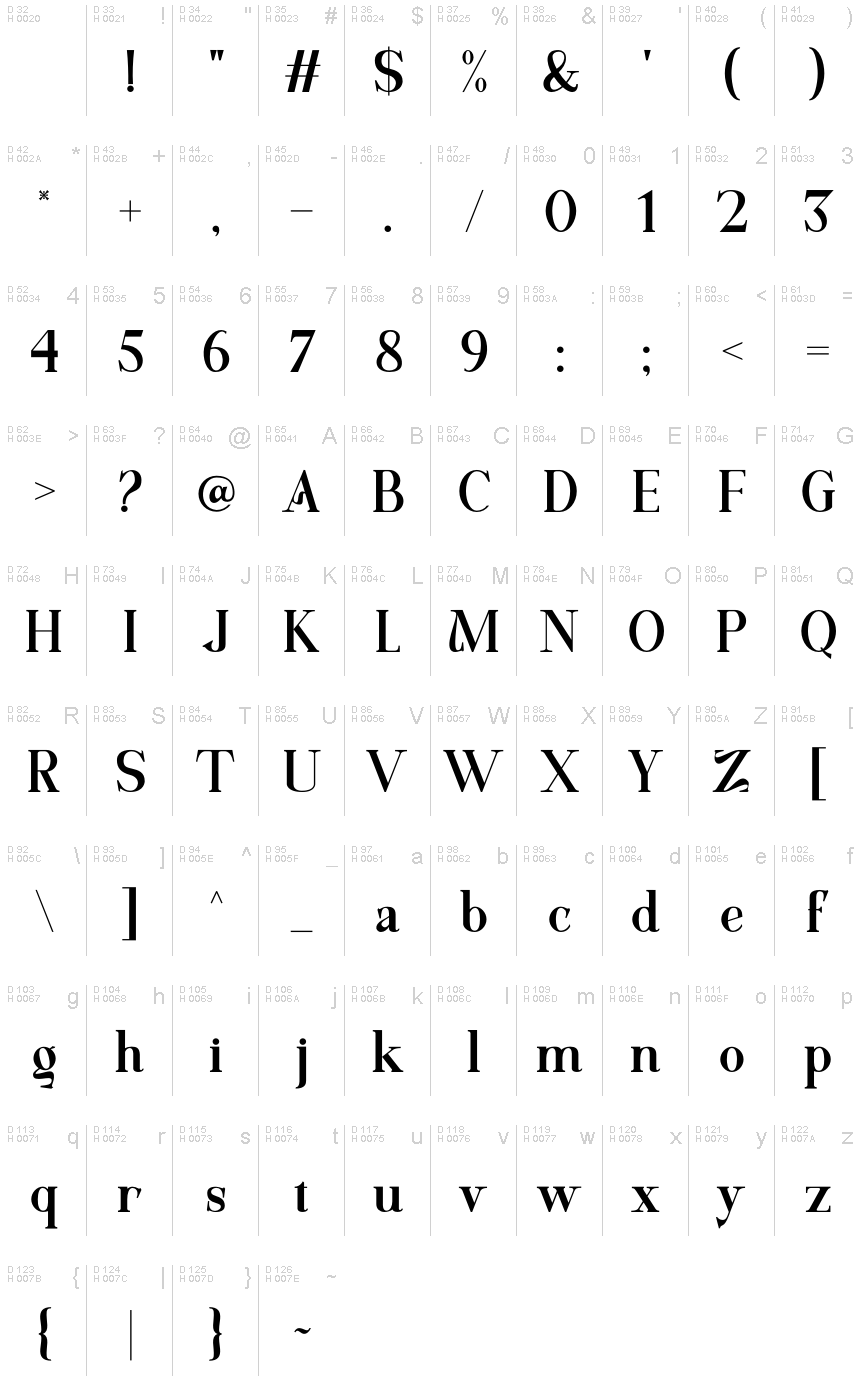
Motzeda
Motzeda, a serif font crafted by Rvandtype, exudes a timeless elegance with its refined, yet striking features. The balanced proportions and subtle stroke variations create a harmonious and legible aesthetic, well-suited for a range of design applications. The font's distinctive character shines through in its intricate ligatures and carefully curated letterforms, inviting the reader to engage with the content on a deeper level.
Motzeda's versatility makes it an excellent choice for projects that require a touch of sophistication, whether in editorial layouts, formal correspondence, or high-end branding. Its versatility and adaptability ensure a seamless integration across various mediums, from print to digital, allowing designers to elevate the visual impact of their work.